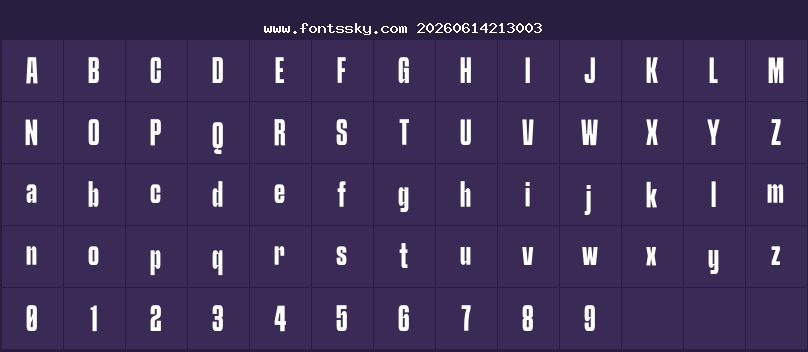
SCHABO Condensed Preview
• Font Name: SCHABO Condensed
• Full Font Name: SCHABO Condensed
About SCHABO Condensed.otf
SCHABO Condensed.otf is a modern, elegant sans-serif font designed for ultimate readability and visual harmony. Perfect for branding, headlines, web design, and print materials.